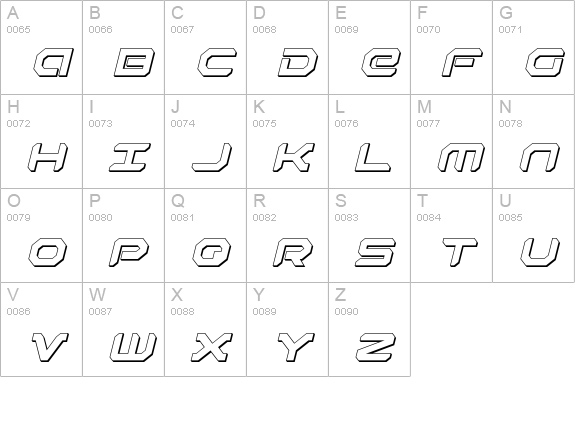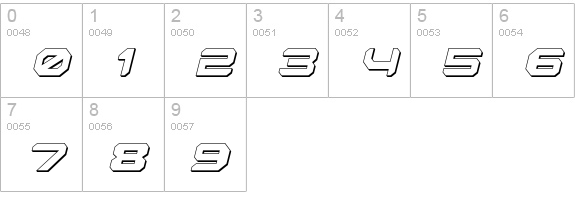
Robotaur 3D Italic Font Details
Robotaur 3D Italic is a distinctive, italic variant in the Robotaur typeface family \xE2\x80\x94 well suited to design and typography projects.
Robotaur 3D Italic font is a modern and stylish typeface designed to make your designs stand out. This futuristic font features a unique 3D effect that adds depth and dimension to your projects. With its sleek and innovative design, Robotaur 3D Italic font is perfect for logos, headlines, posters, and more. And the best part? It's completely free! You can download Robotaur 3D Italic font for free at FontsMarket.com. Don't miss out on this opportunity to enhance your designs with this cutting-edge typeface. Download Robotaur 3D Italic font today and take your projects to the next level!